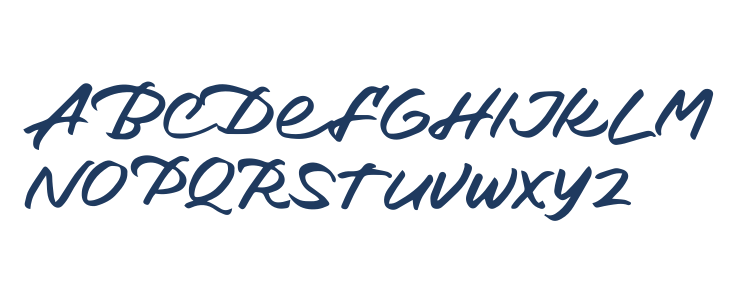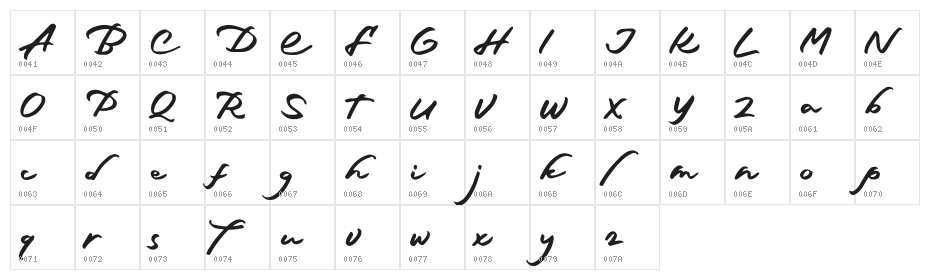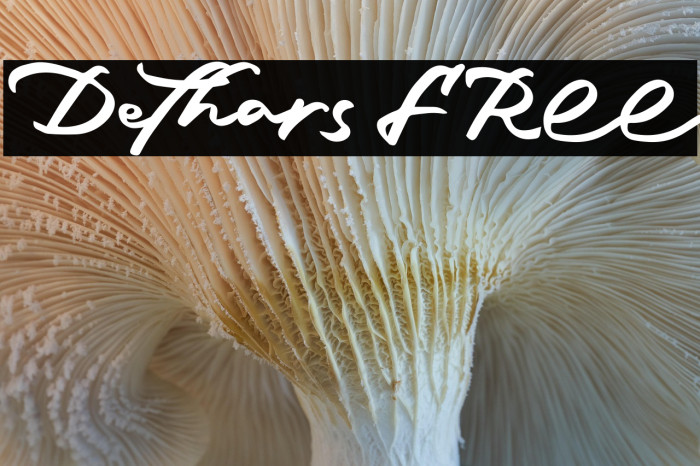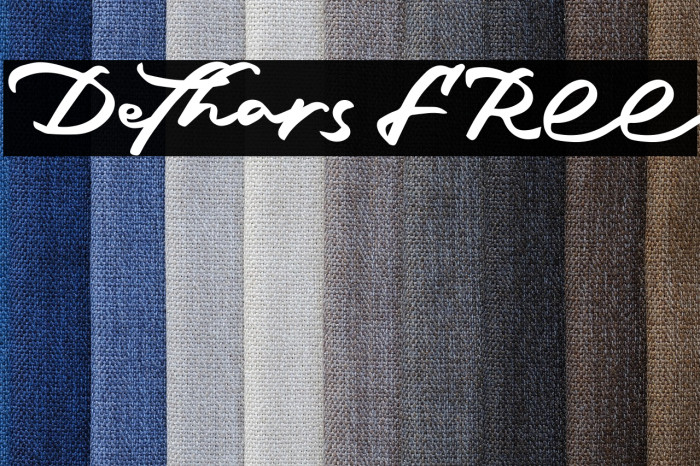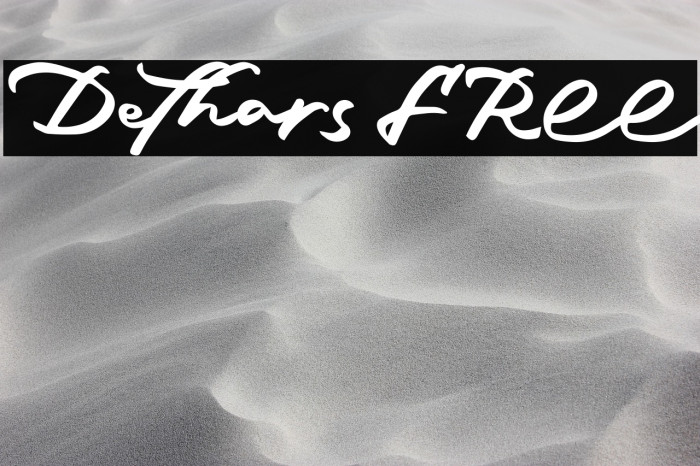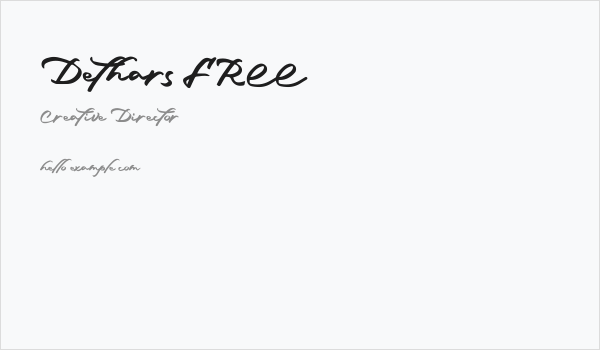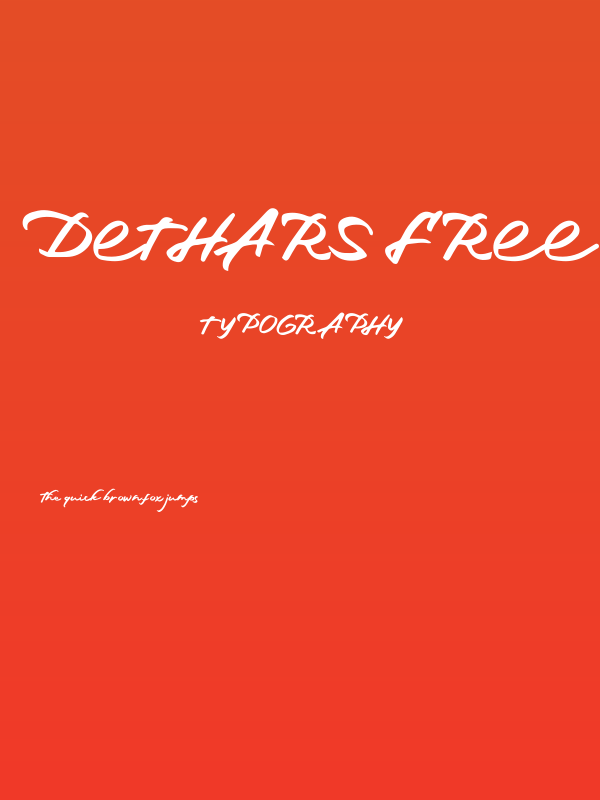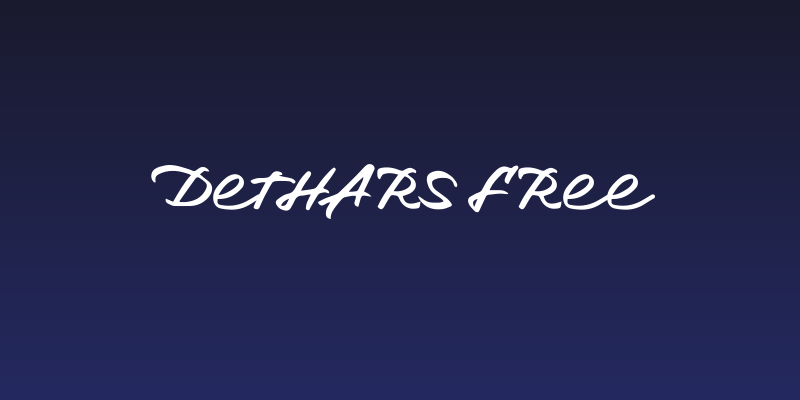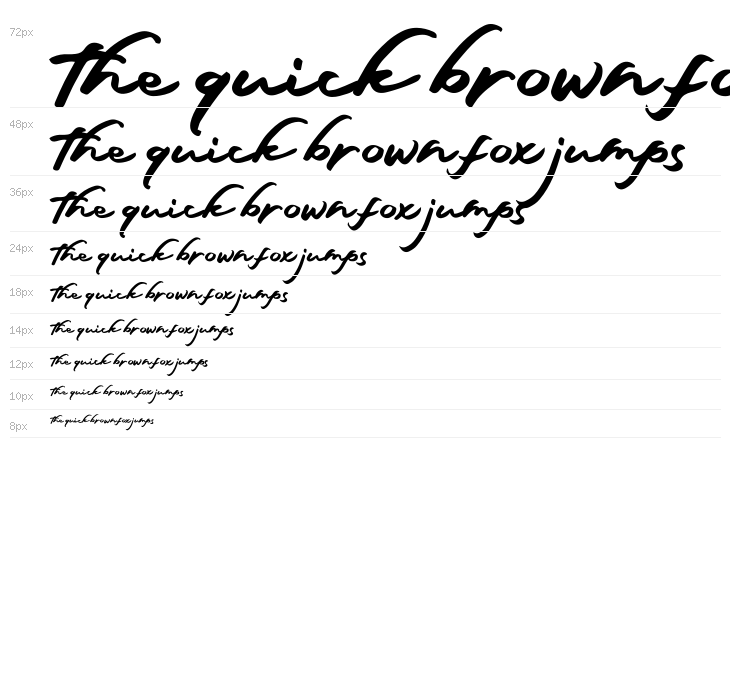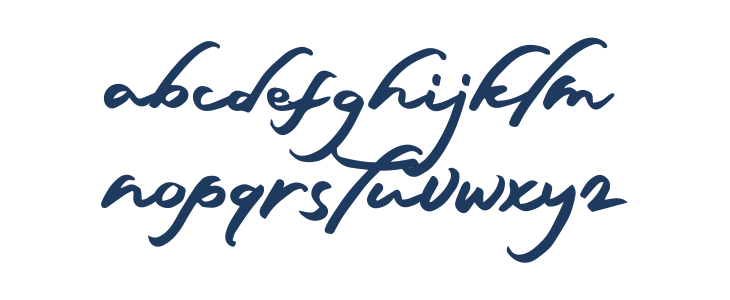
Dethars FREE Font
Dethars FREE Description
A casual, handwritten script font with smooth, flowing strokes and a slightly slanted, italicized appearance. The characters have a natural, brush-like texture with moderate contrast and rounded terminals.
| Overall Style | Casual, Informal |
| Use Case | Invitations, Greeting cards, Logos, Social media posts |
| Proposed Projects | Personal branding, invitations, greeting cards, social media graphics, and informal logos. |